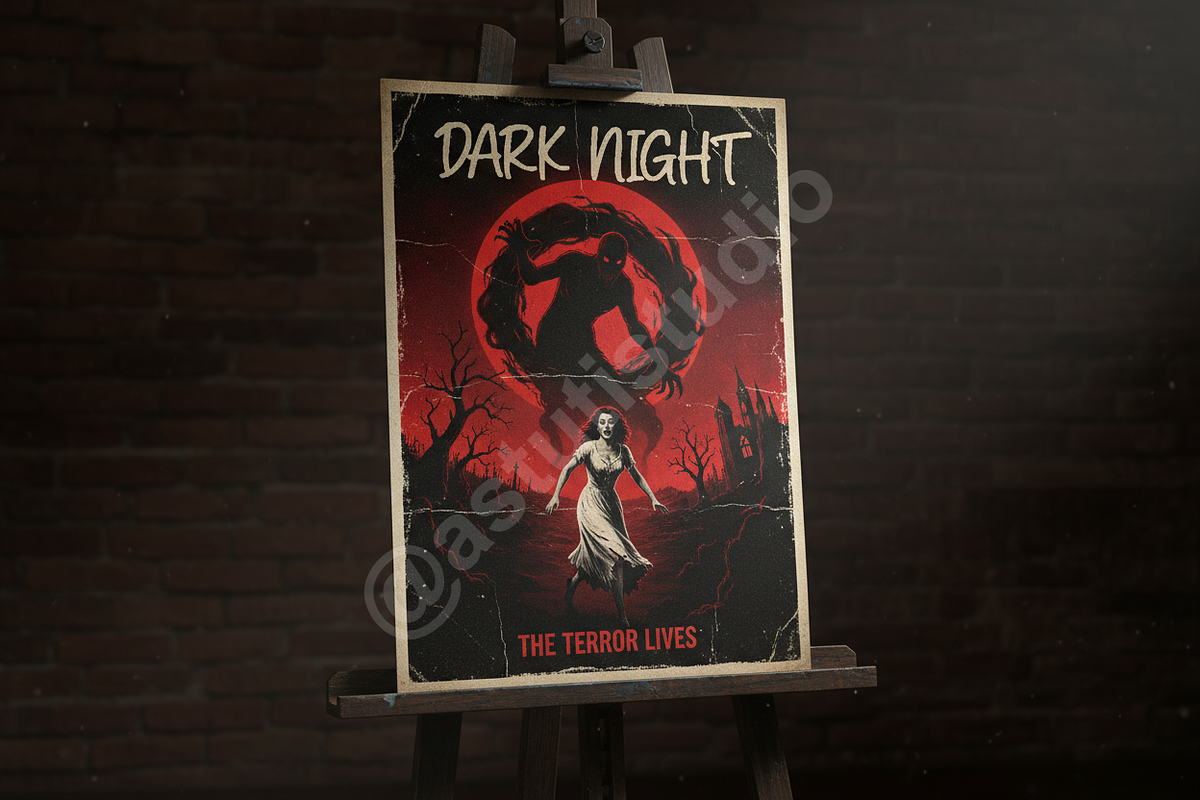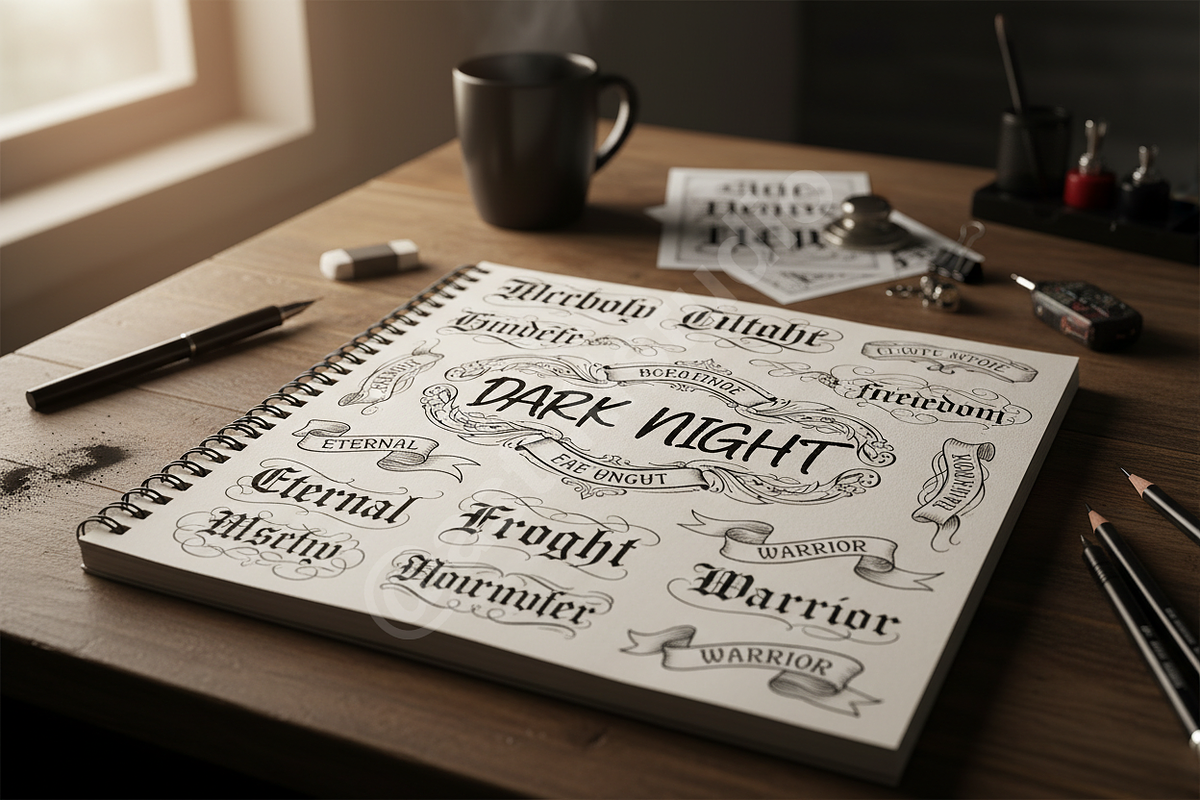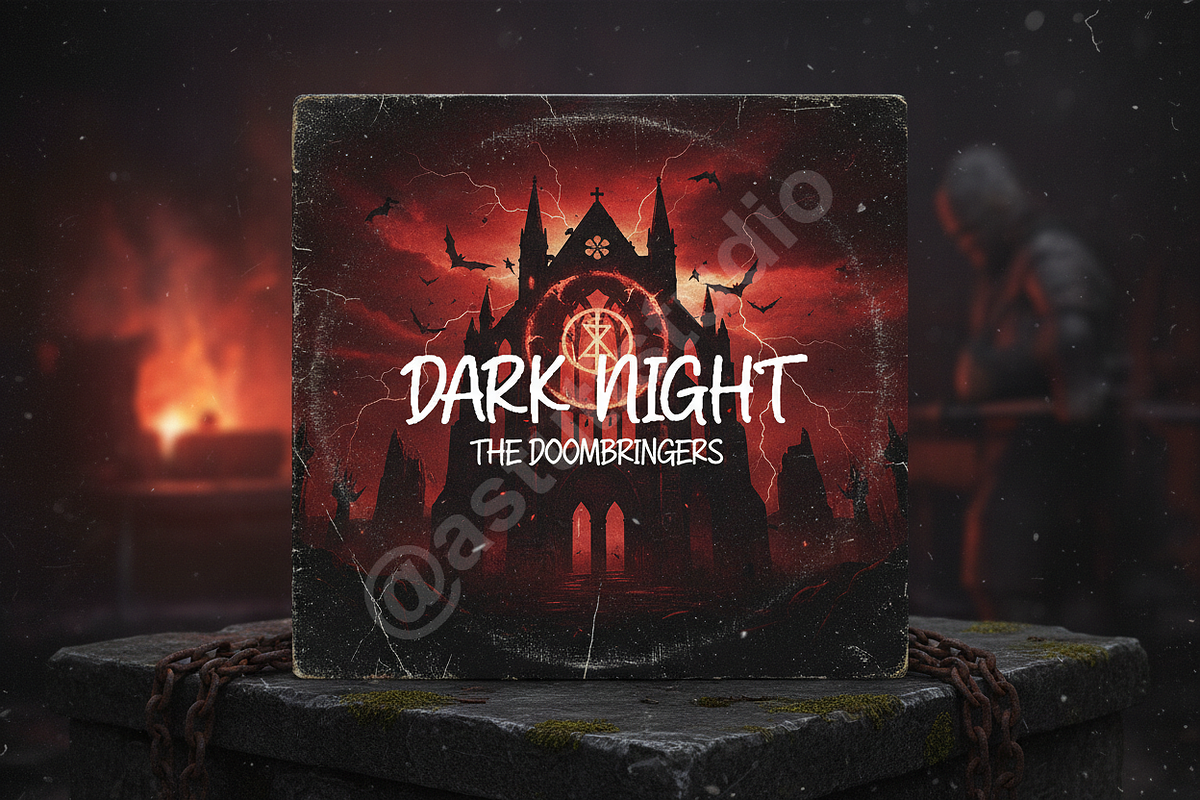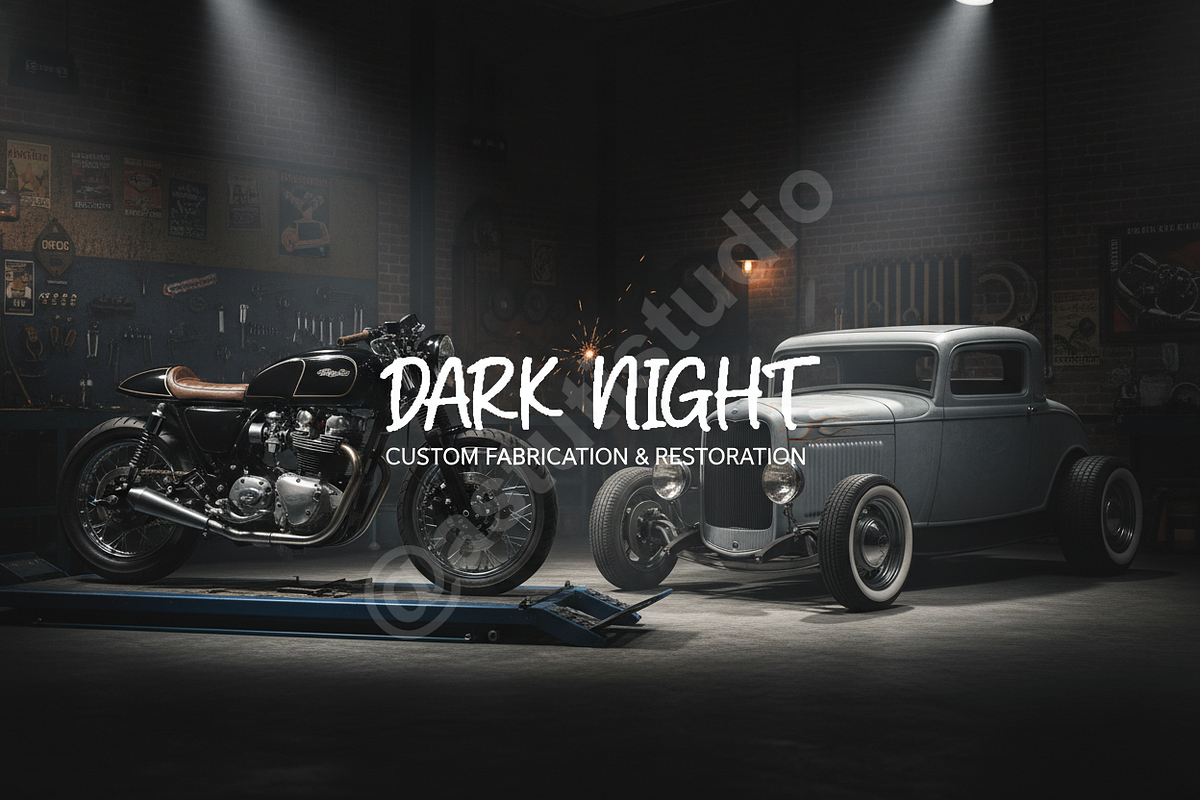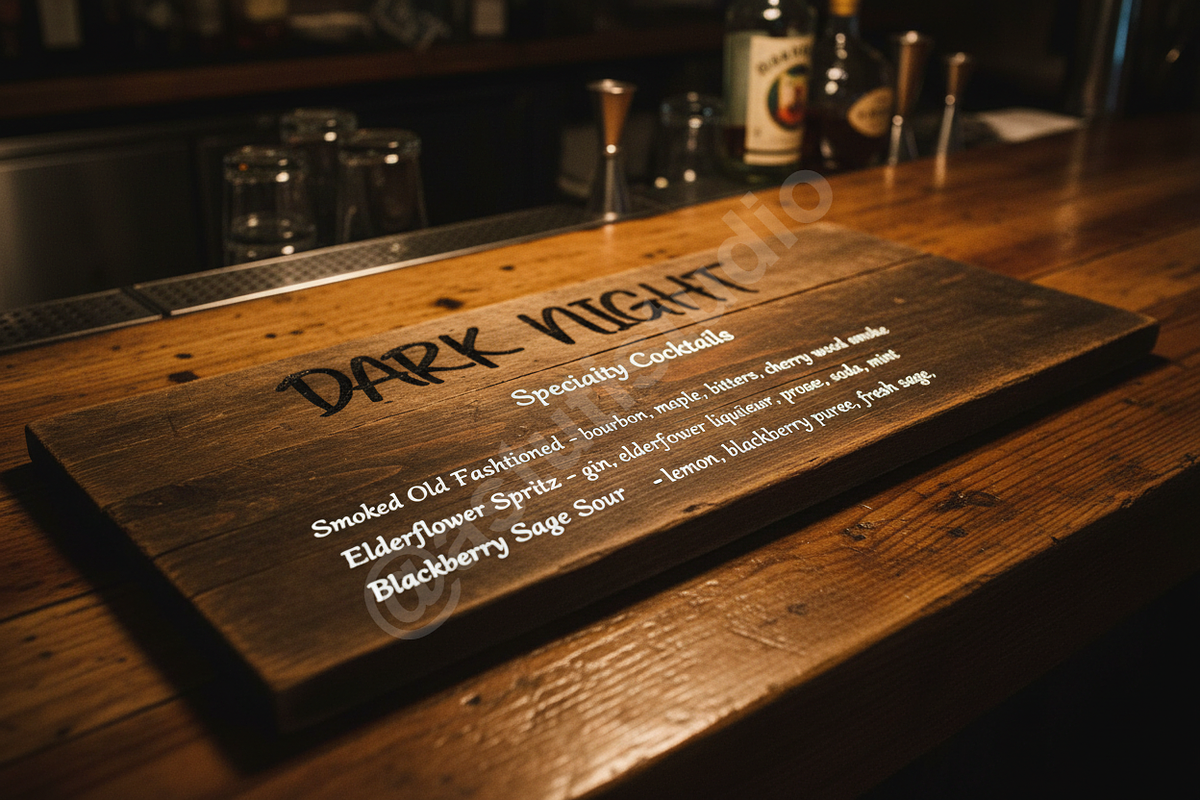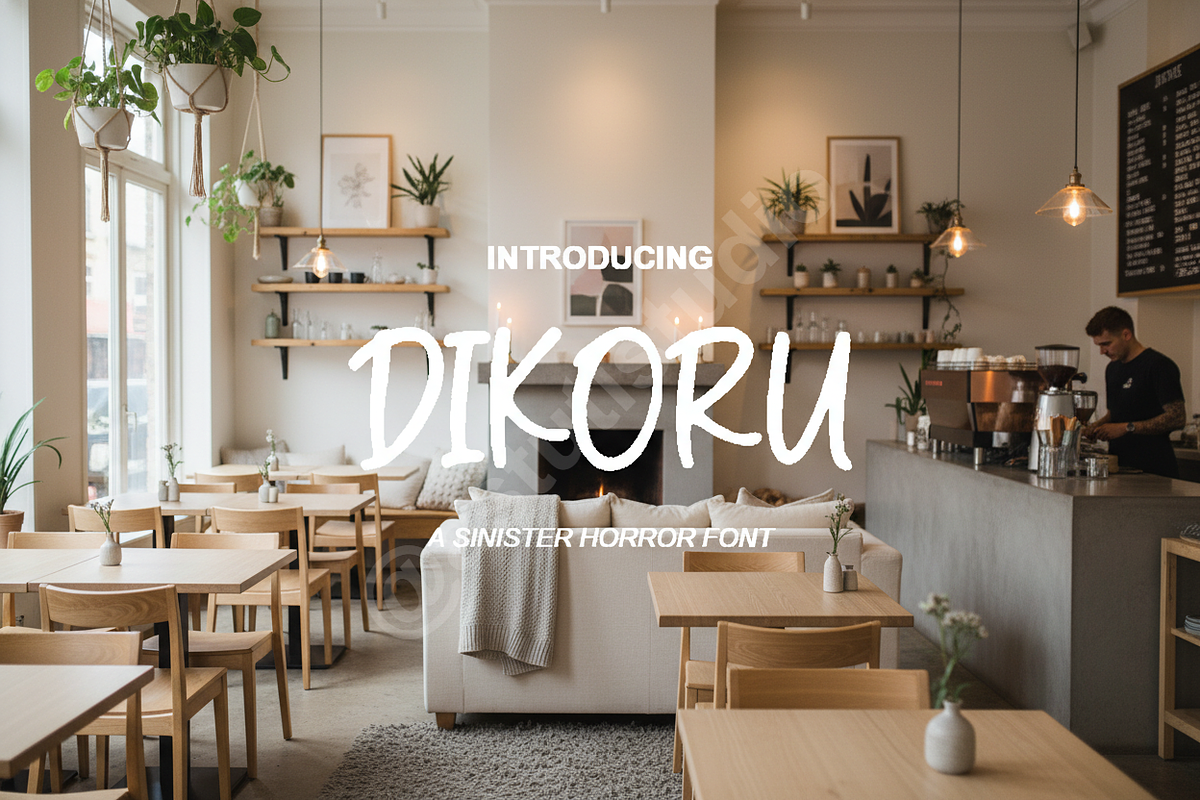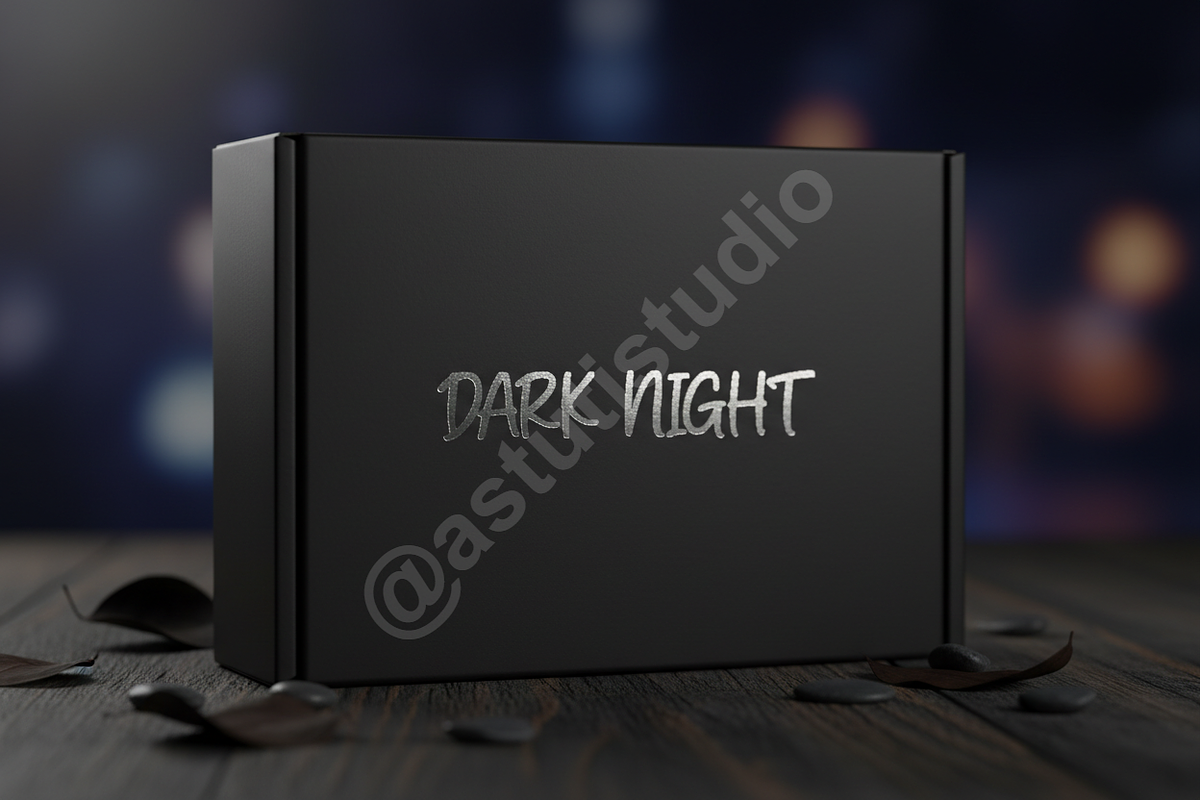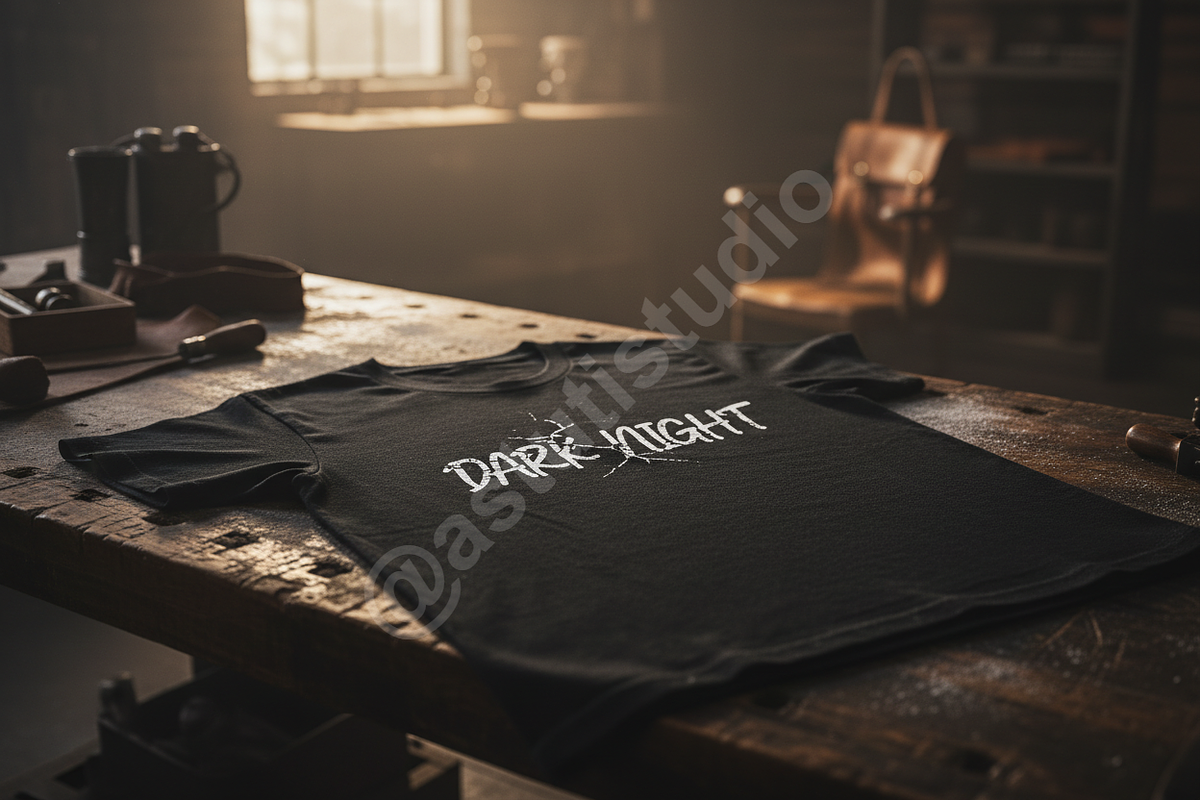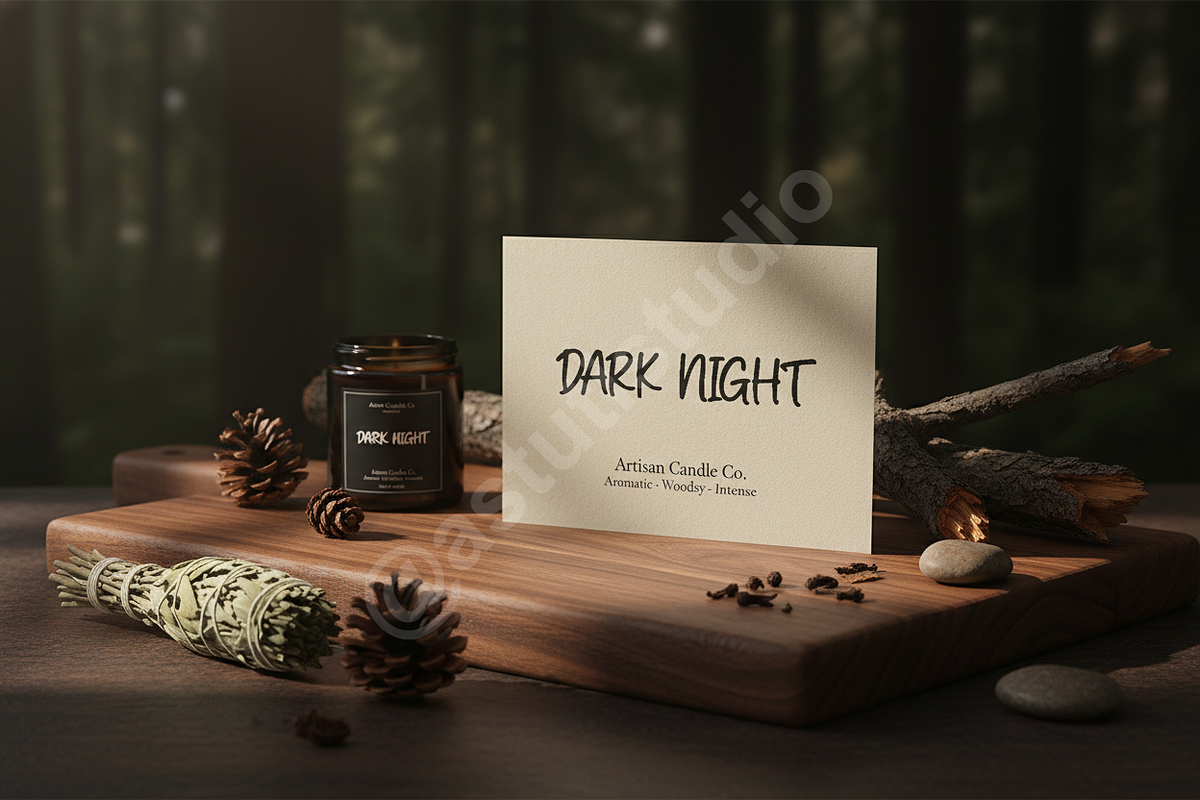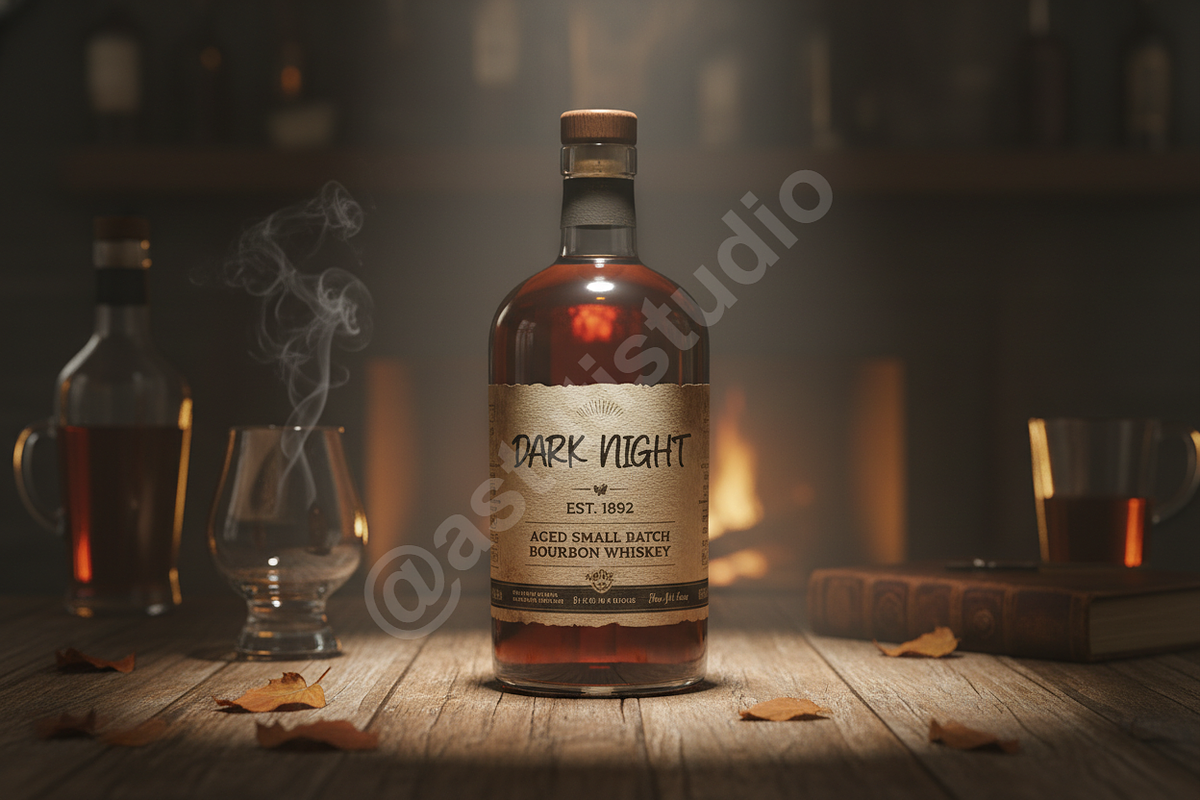
Dikoru - Elegant High-Contrast Serif
Dikoru is a stunning, high-contrast serif font designed to elevate sophisticated projects. Drawing inspiration from classic fashion mastheads and modern minimalist aesthetics, Dikoru delivers unmistakable elegance and confidence. It is meticulously crafted for designers seeking a refined and luxurious typographic statement.
- High-Contrast Design: Sharp, exaggerated serifs and dramatic thick-thin transitions ensure maximum visual impact, especially at display sizes.
- Extensive Multilingual Support: Ready for global branding initiatives across Western and Central European languages.
- OpenType Features: Includes standard ligatures and stylistic alternates to customize your headlines and monograms.
- Optimized for Digital & Print: Perfect rendering in both high-resolution print production and modern web environments.
- Versatility: Ideal for achieving a high-end look across various mediums, from small body text to large feature titles.
Ideal Applications
Dikoru excels in projects demanding refinement and prestige:
- Luxury Branding & Identity Design
- High-End Magazine Layouts & Editorial Publishing
- Fashion Photography Watermarks
- Elegant Social Media Graphics and Marketing Materials
- Prestigious Packaging Design & Product Labels
- Full set of uppercase and lowercase letters, numerals, and comprehensive punctuation.